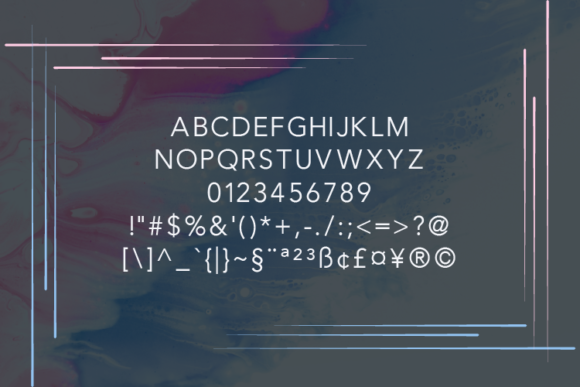
Gothic Extra Light Font: Elevate Your Designs with Elegance and Sophistication
In the realm of typography, the right font can make or break a design. For designers and crafters seeking a modern and elegant sans serif font, Gothic Extra Light is an exceptional choice. This versatile font is perfect for a wide range of projects, from headings to smaller body text, and pairs beautifully with script and handwritten fonts.
What is Gothic Extra Light Font?
Gothic Extra Light is a contemporary sans serif font that exudes elegance and sophistication. Its clean lines, subtle curves, and minimalist aesthetic make it an ideal choice for designers looking to add a touch of refinement to their work. The font’s extra light weight gives it a delicate, airy feel that is both visually appealing and highly legible.
Key Features of Gothic Extra Light Font
- Modern and Elegant Design: Gothic Extra Light boasts a sleek, modern design that is perfect for creating visually stunning text.
- Sans Serif Style: The font’s sans serif style gives it a clean and minimalist look that works well in a variety of design contexts.
- High Legibility: The extra light weight of the font ensures that it remains highly legible, even at smaller sizes.
- Versatile: Gothic Extra Light is suitable for a wide range of projects, from headings and titles to smaller body text.
- Pairs Well with Script and Handwritten Fonts: The font’s elegant design makes it an excellent match for script and handwritten fonts, allowing designers to create beautiful, harmonious text combinations.
Use Cases for Gothic Extra Light Font
Gothic Extra Light is a versatile font that can be used in a variety of design contexts. Here are some examples of how you can use this font in your next project:
- Headings and Titles: The font’s elegant design makes it perfect for creating stunning headings and titles that grab attention.
- Body Text: Gothic Extra Light’s high legibility and clean design make it suitable for smaller body text, such as paragraphs and descriptions.
- Branding and Logo Design: The font’s modern and elegant aesthetic makes it an excellent choice for branding and logo design projects.
- Web Design: Gothic Extra Light is a great choice for web design projects, as it works well on a variety of devices and screen sizes.
- Print Design: The font is also suitable for print design projects, such as brochures, flyers, and posters.
Why Choose Gothic Extra Light Font?
With so many fonts available, why choose Gothic Extra Light? Here are a few reasons why this font stands out:
- Unique and Distinctive Design: Gothic Extra Light has a unique and distinctive design that sets it apart from other sans serif fonts.
- Highly Legible: The font’s extra light weight and clean design ensure that it remains highly legible, even at smaller sizes.
- Versatile: Gothic Extra Light is suitable for a wide range of design contexts, making it a great addition to any designer’s font library.
- Elegant and Sophisticated: The font’s elegant and sophisticated aesthetic makes it perfect for designers looking to add a touch of refinement to their work.
Gothic Extra Light is a modern and elegant sans serif font that is perfect for designers and crafters seeking to elevate their designs. With its clean lines, subtle curves, and minimalist aesthetic, this font is sure to impress. Its versatility, high legibility, and elegant design make it an excellent choice for a wide range of projects, from headings and titles to smaller body text. Whether you’re working on a branding project, web design, or print design, Gothic Extra Light is a great choice.